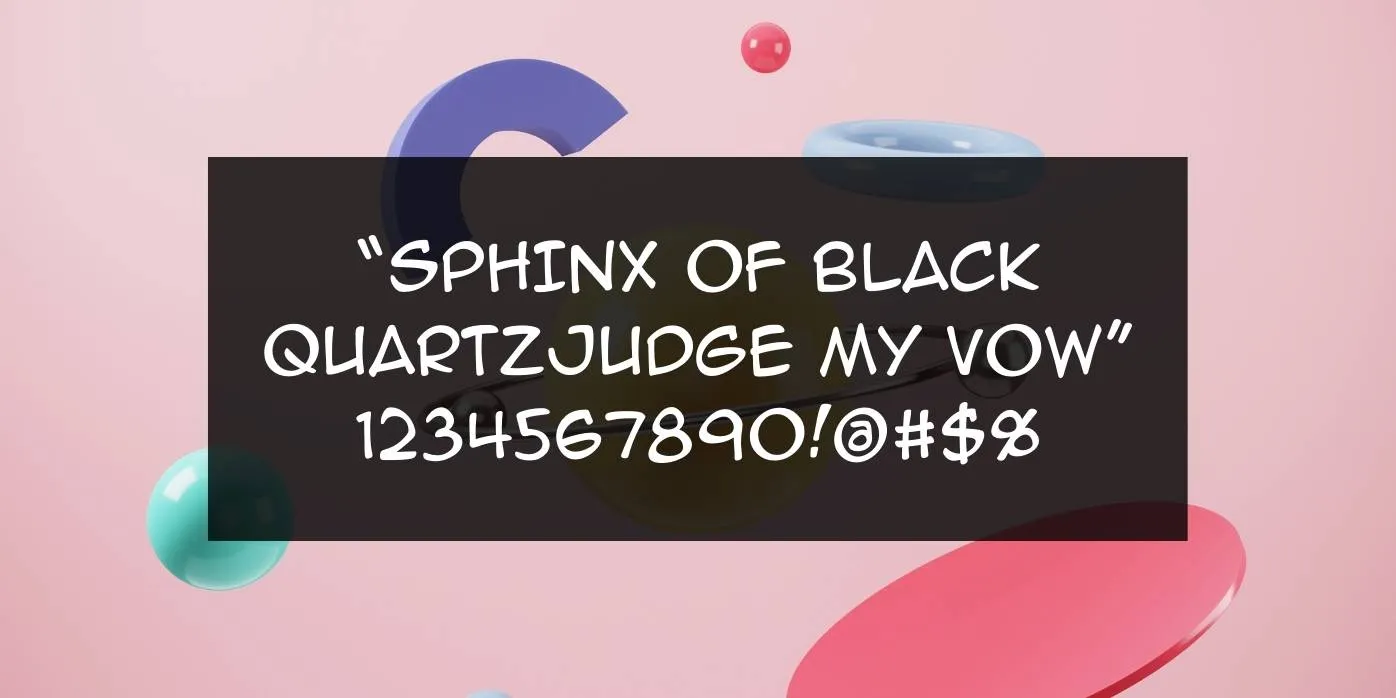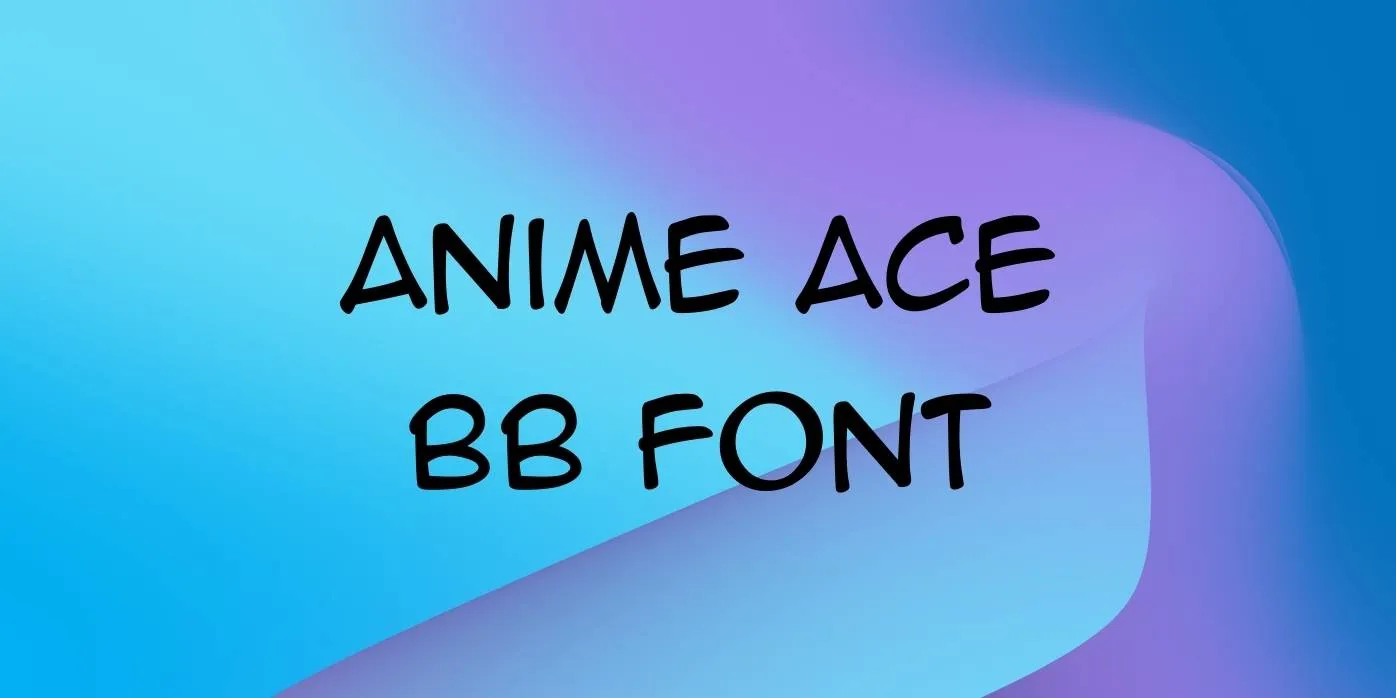
Anime Ace BB Font
Anime Ace BB Font belongs to the fancy font family. It was developed by Blambot. The design of this font was inspired by popular anime and manga culture. This stunning font comes in two sizes: Regular and Bold.
To find the perfect text size for your project, start by setting the font size to 1em (16px). Then, adjust the size until it is comfortable to read. It is very famous because of its unique and stylish look. This font is perfect for any project that requires a fun and youthful touch.  Another similar font which is arcanista font is perfect for different designs.
If you are looking for a Typeface that is both stylish and functional, Anime Ace BB Typeface is the perfect choice for you. This font is perfect for creating comic books, graphic novels, and other creative projects. Its online generator tool is perfect for many designs.